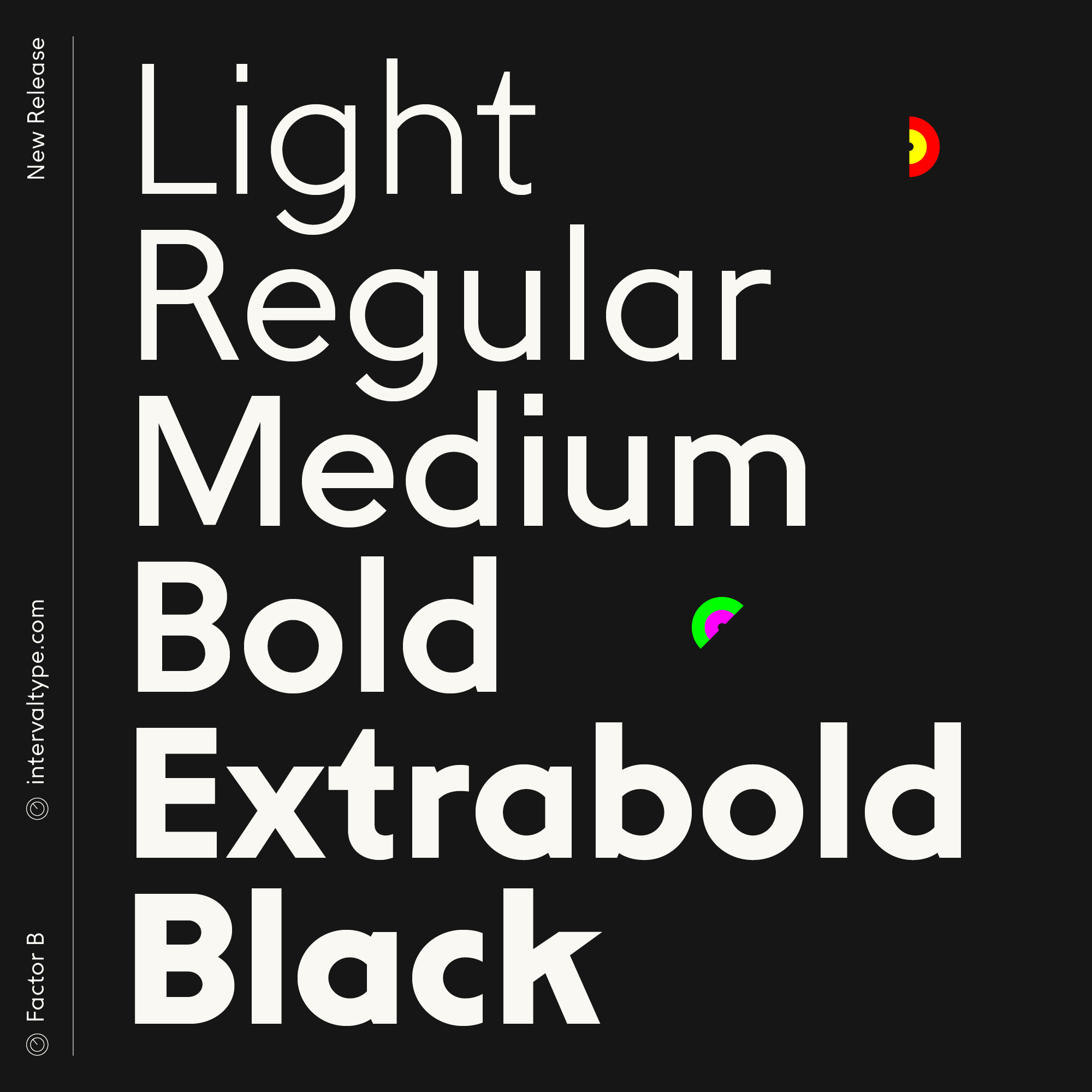
Factor B is a functional and reliable geometric grotesque conceptually inspired by Futura and its alternates. In a way, it synthesises the sans serif designs of the early 20th century, including the legendary Johnston Sans. At first glance, Factor B seems more rational than Factor A. However, the Altiverse set, with its wide selection of geometrically structured alternates partly inspired by the typography of the analogue synth era, might make you reconsider. These alternates are a perfect way to add more personality to your titles and logos. Factor B works well at both display and text sizes, offering six styles ranging from Light to Black.